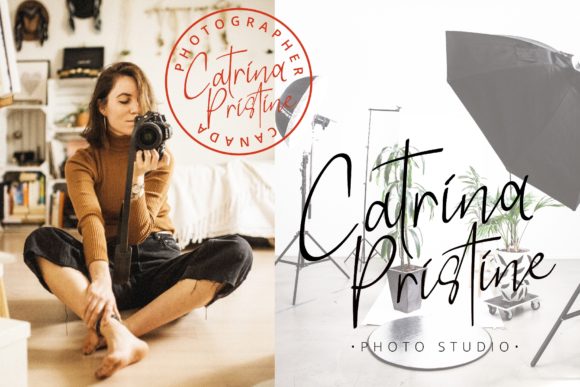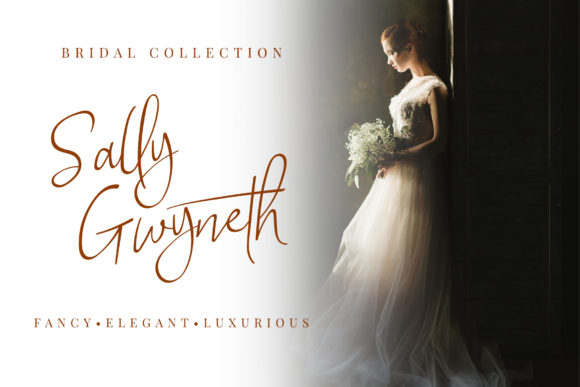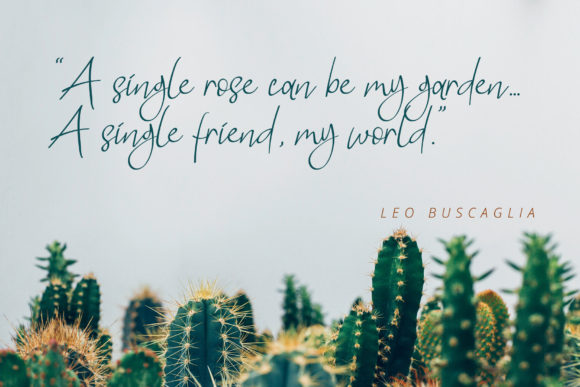
Introduction to Melly Thoughtie Font
As designers, we’ve all been there – staring at a blank canvas, trying to come up with the perfect concept for a project. The cursor blinks, and our minds go blank. But what if you had the perfect tool to break through that creative block? Enter the Melly Thoughtie Font, a modern and cute script font that’s about to revolutionize your design game.
With its high-quality, elegant design, the Melly Thoughtie Font is a free download that’s perfect for a wide range of creative projects. Whether you’re working on branding, headings, wedding designs, invitations, signatures, logos, labels, or anything in between, this versatile font is sure to elevate your work to the next level. And with its transparent background, you can easily layer it over any design element, making it a valuable resource for any designer.
Key Features of Melly Thoughtie Font
- High-quality design: The Melly Thoughtie Font is a unique and creative design resource, ideal for various projects.
- High-resolution design: The font is designed at a high resolution, making it suitable for use in large-scale creative projects.
- Unique and creative style: The Melly Thoughtie Font features a unique and creative style, making it an excellent choice for designers looking to add a touch of personality to their work.
Honest Review: Melly Thoughtie Font
I recently stumbled upon the Melly Thoughtie Font, a high-quality design resource that caught my attention. As a designer, I’m always on the lookout for unique and creative fonts to elevate my projects. The Melly Thoughtie Font is a free download, which is a major plus in my book.
One of the things that stands out about this font is its transparent background, making it easy to use on any design project. Whether you’re working on a logo, business card, or social media graphic, the Melly Thoughtie Font is a versatile choice. The font’s whimsical feel makes it perfect for creative projects, from children’s book illustrations to wedding invitations.
Here are some of the things that work well with the Melly Thoughtie Font:
- Unique and creative design
- High-quality output
- Transparent background for easy use
- Perfect for creative projects
However, I do have to mention a few limitations:
- Limited font weights and styles
- Not ideal for formal or corporate projects
Overall, I’m impressed with the Melly Thoughtie Font and would recommend it to designers looking for a high-quality, creative font for their projects. Just be aware of its limitations and use it accordingly.
Tips for Getting the Most Out of Melly Thoughtie Font
To get the most out of Melly Thoughtie Font, use it in conjunction with a transparent background to create a creative project that really pops. This font is perfect for designers who want to add a unique touch to their designs. Additionally, consider using the font in combination with other design resources, such as graphics and textures, to add depth and interest to your project.
Melly Thoughtie Font is a versatile design resource that can be used in a variety of creative projects, including social media graphics, business cards, and presentations. Its unique and playful style makes it perfect for designers who want to add a personal touch to their work. With its high-quality design and free download, Melly Thoughtie Font is a must-have resource for any designer.